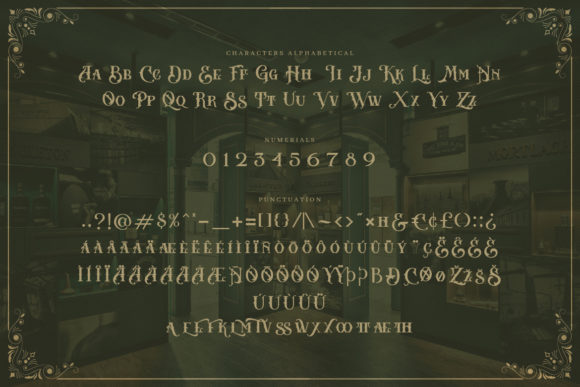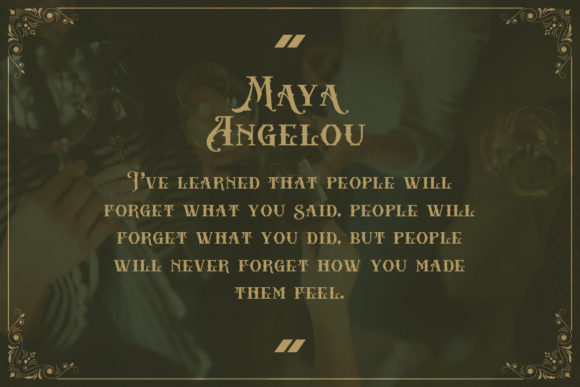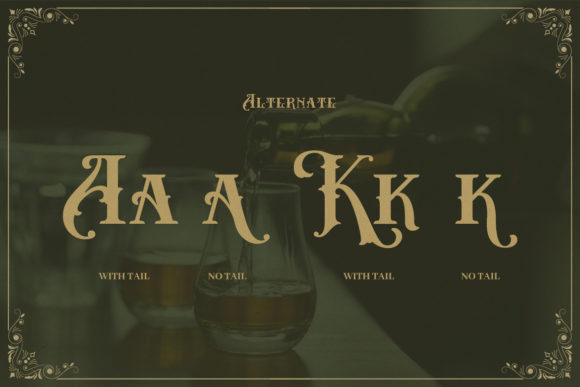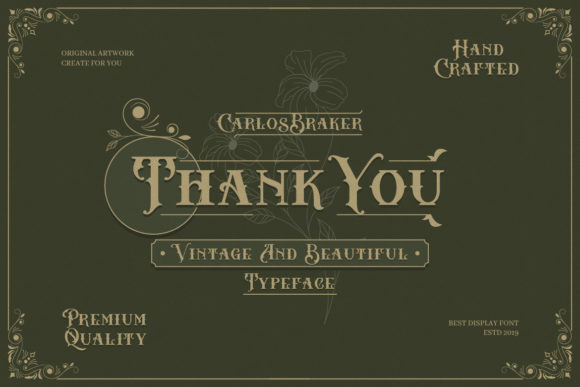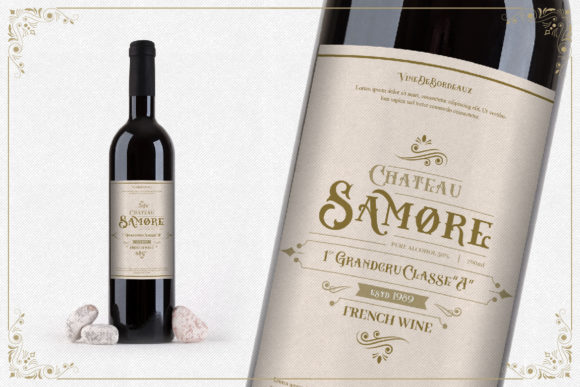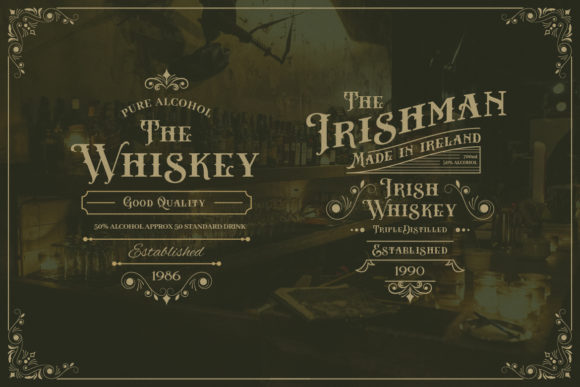
Unlock the Charm of Vintage Design with Carlos Barker Font
You’ve finally found that perfect idea – the one that will make your project truly shine. But, how do you bring it to life? That’s where the magic of typography comes in. The right font can elevate your design from ordinary to extraordinary, and that’s exactly what Carlos Barker Font does. This vintage styled display font is designed to add a touch of elegance and sophistication to any creative project.
Whether you’re a seasoned designer or just starting out, Carlos Barker Font is a valuable addition to your toolkit. Its unique blend of vintage charm and modern flair makes it perfect for a wide range of applications, from branding and advertising to editorial and packaging design. By incorporating Carlos Barker Font into your creative ideas, you’ll be able to create visually stunning designs that truly stand out from the crowd.
Carlos Barker Font Key Features
- Unique Characteristics: This font features a unique blend of modern and vintage elements, making it perfect for creating eye-catching headings and titles.
- Style Variations: Available in multiple styles, including Regular, Italic, Bold, and Bold Italic, providing flexibility for various design needs.
- Language Support: Supports multiple languages, including Latin, Cyrillic, and Greek scripts, making it a versatile choice for global designs.
Carlos Barker Font Review
Overall, I’d say the Carlos Barker Font is a solid addition to any designer’s toolkit. ✨ It’s clear that the designers behind this font have put a lot of thought into creating a font that’s both stylish and functional.
- The font’s unique blend of modern and vintage elements ✨ is a great conversation starter and can really help a design stand out.
- The high level of customizability ✨ is a major plus for designers who need to tailor their font to specific projects or brands.
- The font’s readability is top-notch ✨, making it perfect for body text, headings, and just about anything in between.
- The font’s lack of bold and italic options ⚠️ can make it difficult to use in situations where you need to emphasize certain words or phrases.
- The font’s quirky character set ⚠️ may not be suitable for every project or brand.
Overall, I’d give the Carlos Barker Font 4 out of 5 stars. It’s a great choice for designers who want a font that’s both stylish and versatile, but it may not be the best fit for every project. With a bit more attention to detail and some additional features, I think this font could be truly exceptional.
Getting the Most Out of Carlos Barker Font
To get the most out of Carlos Barker Font, use it for:
- Casual, creative projects such as blog posts, social media graphics, and advertisements.
- Branding and marketing materials, such as logos and business cards.
Some common use cases for Carlos Barker Font include:
- Creating a unique and eye-catching headline or title.
Alternatives to Carlos Barker Font
Lato is a modern sans-serif font designed by Łukasz Dziedzic. It’s a clean and elegant font suitable for a wide range of applications, from body text to headings. Lato is a great alternative to Carlos Barker Font when you need a more minimalist and neutral design. Compared to Carlos Barker Font, Lato is more versatile and has a wider range of weights.
Montserrat is a geometric sans-serif font designed by Julieta Ulanovsky. It’s a bold and modern font ideal for headlines, titles, and logos. Montserrat is a great alternative to Carlos Barker Font when you need a more dramatic and attention-grabbing design. Compared to Carlos Barker Font, Montserrat is more aggressive and has a stronger visual impact.